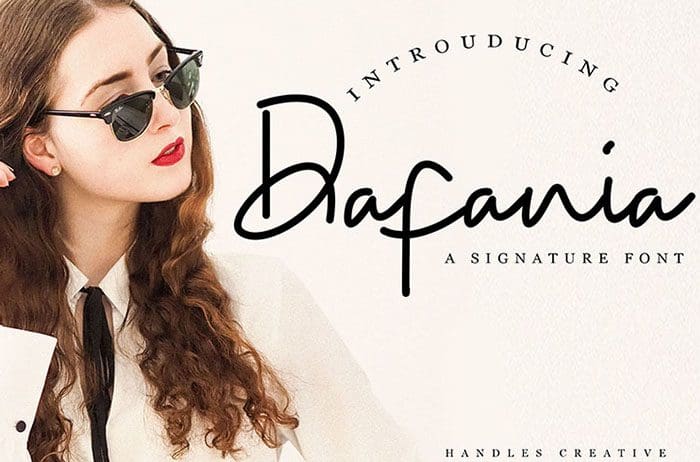
Dafania is a modern and elegant Signature Font. Use it to make your ideas even more realistic and create spectacular designs. Thanks to Handles Creative for sharing this font! Take a look at this portfolio for more of his stunning fonts.